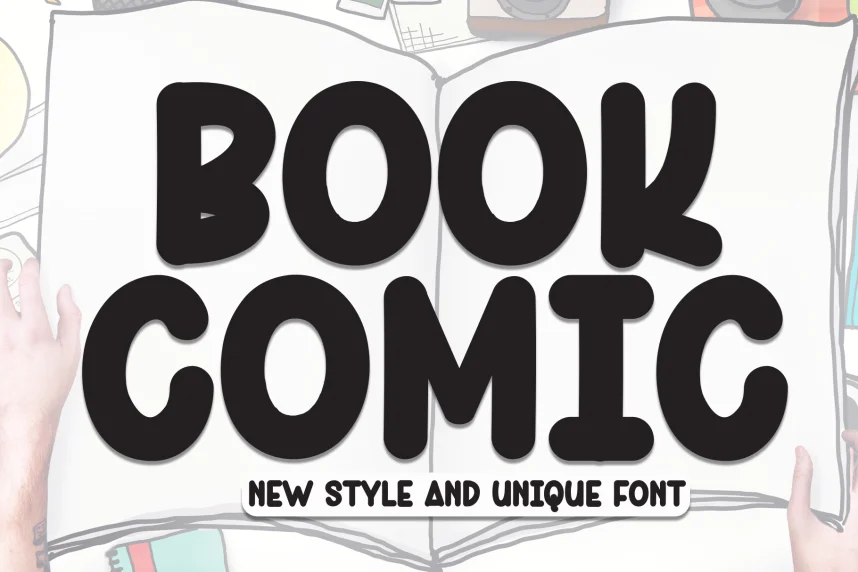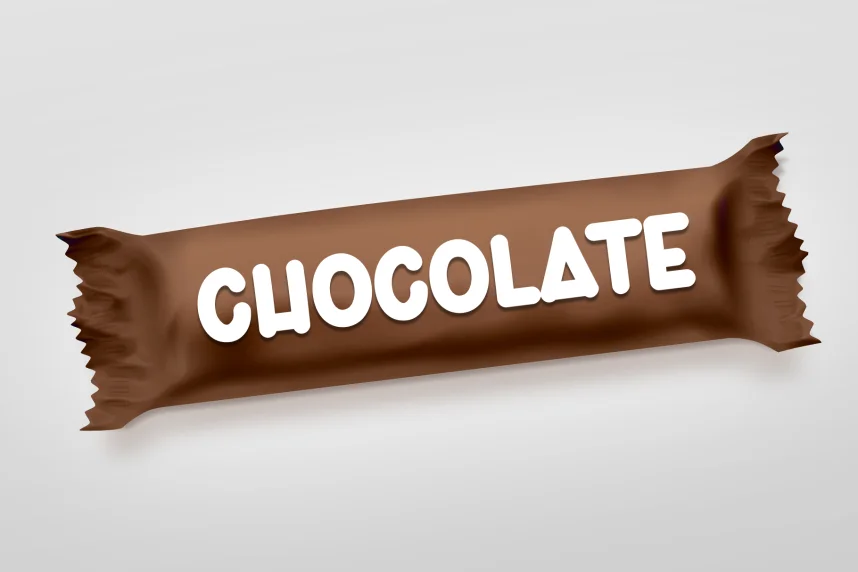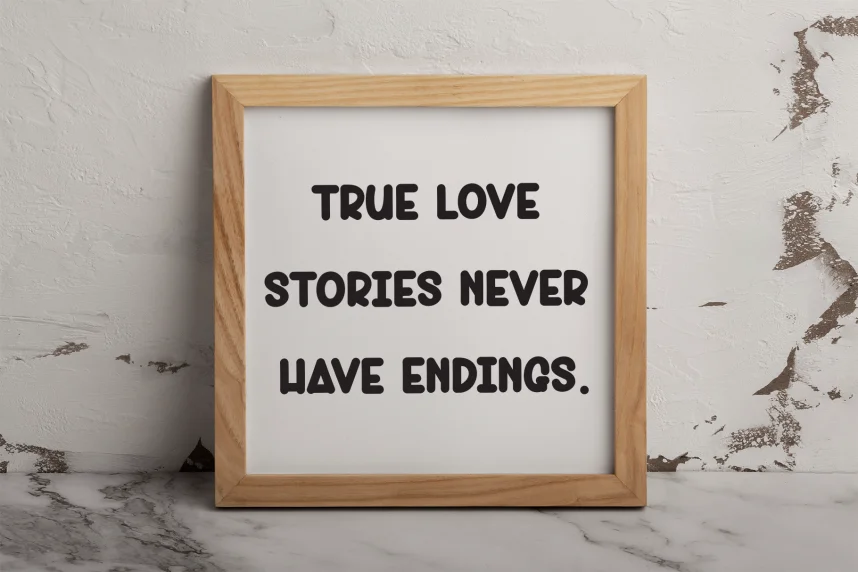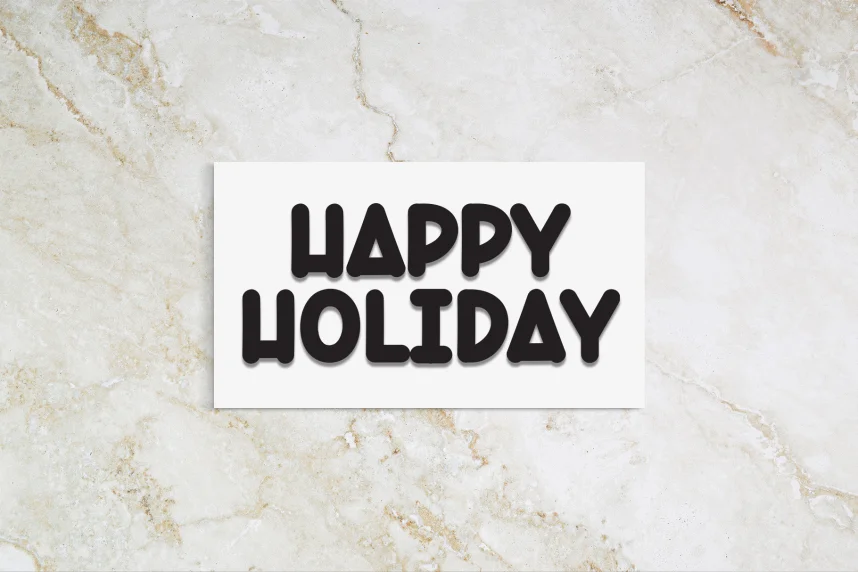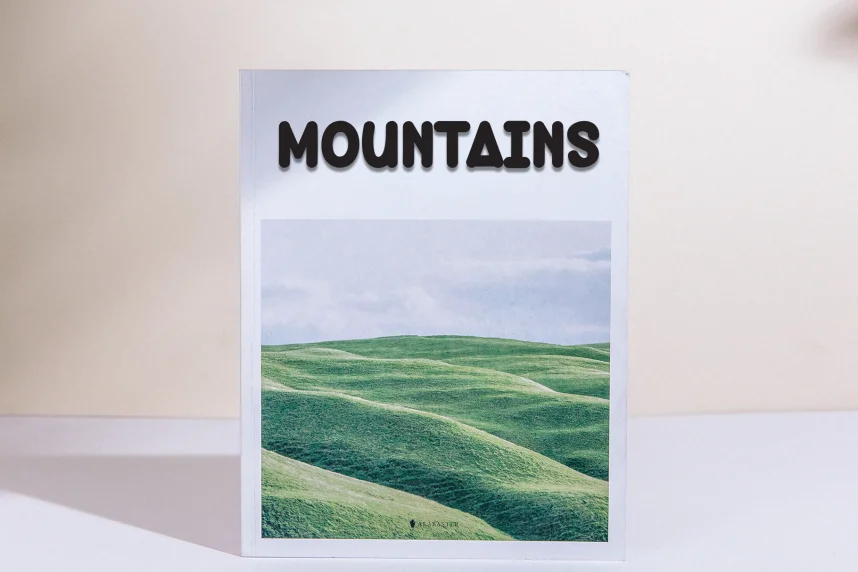
Book Comic – Playful And Unique Font addresses the need for a friendly, engaging font for children's books and playful designs. Designers use it to create fun and approachable content for younger audiences.
Book Comic is a playful display font with comic-style letterforms, rounded edges, and exaggerated shapes. The font feels informal and fun, making it suitable for projects aimed at kids and playful branding.